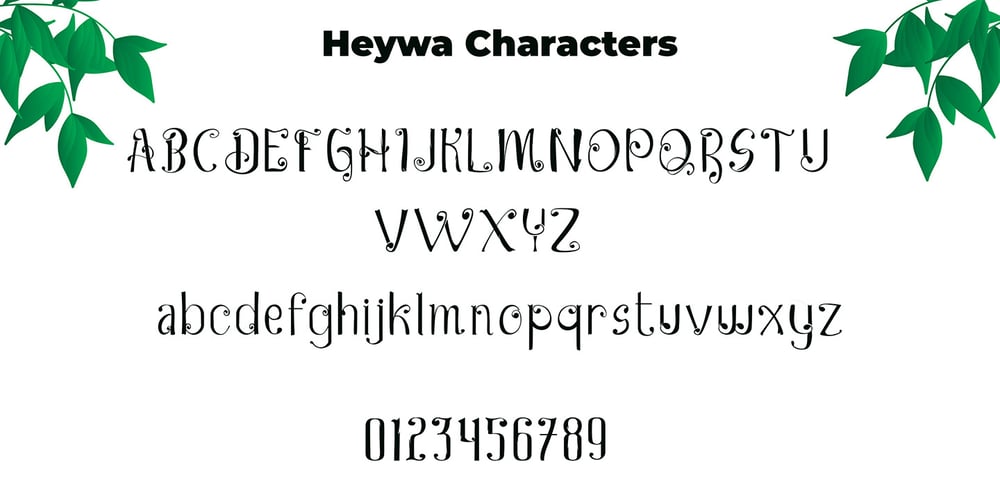
Heywa Font Family was designed by Fajar Rachmadi Priyambada and published by DawnCreative.Id. Heywa contains 1 styles and family package options. Heywa is a nature styled, handwritten font with a mixture of ornaments that adds classic and vintage styles to it. It is very well suited to be used for book titles, bands, movies, advertising, and more.